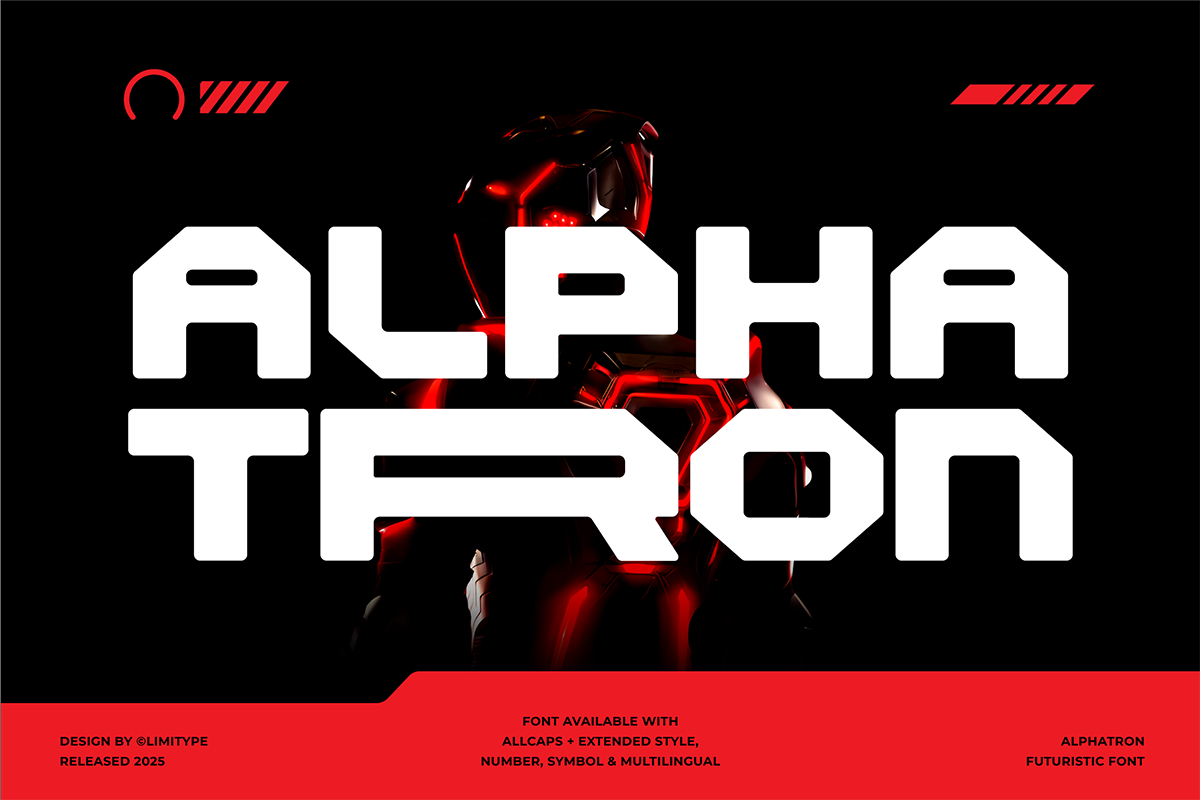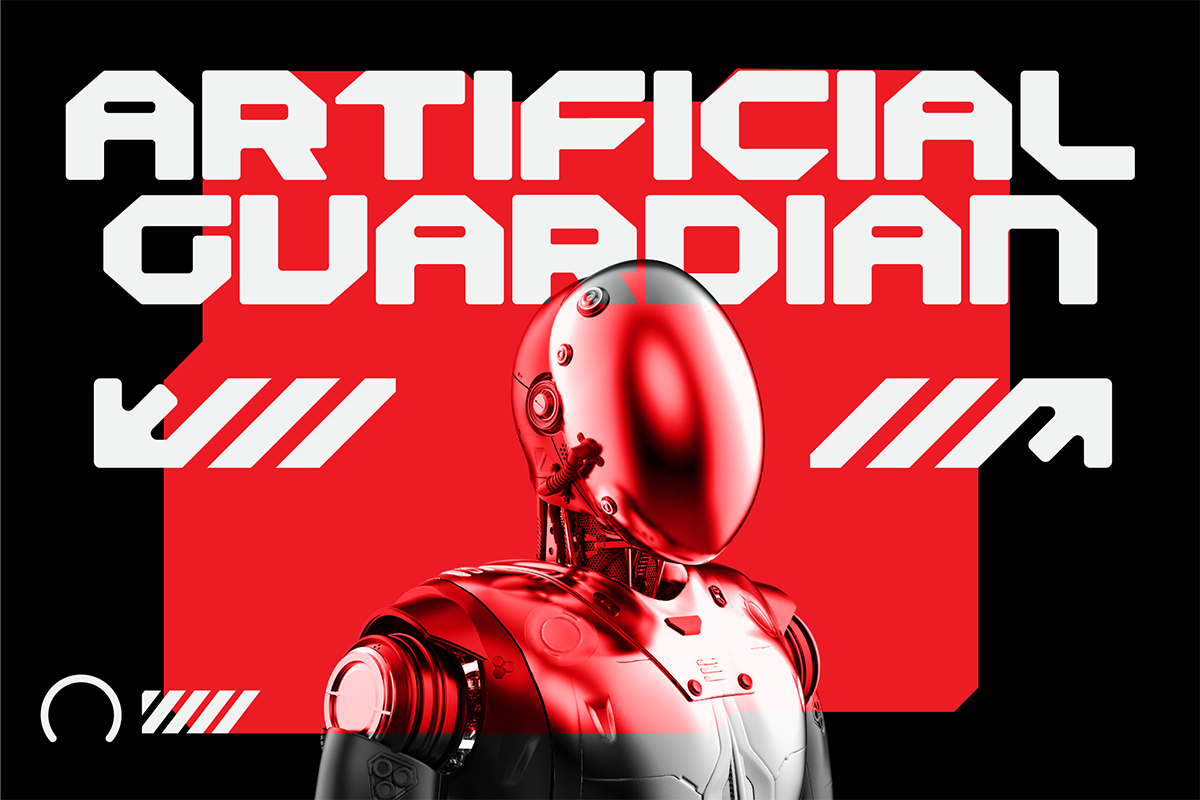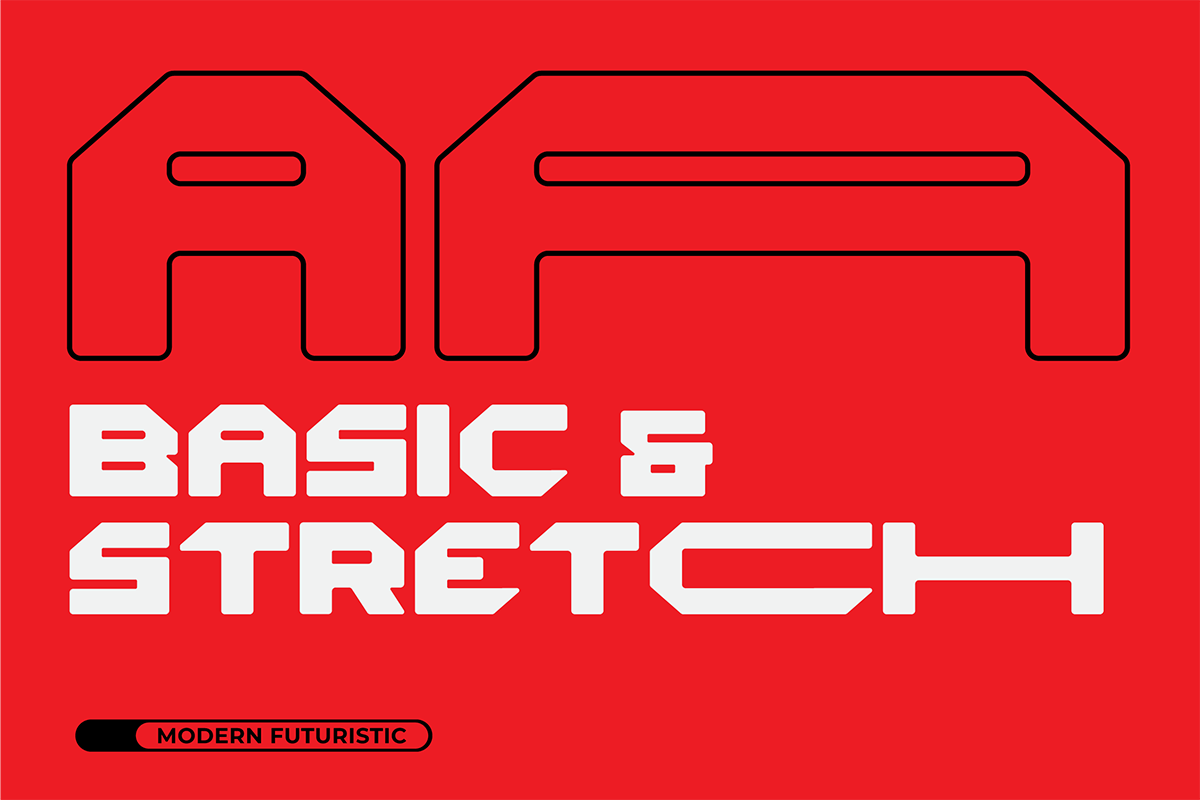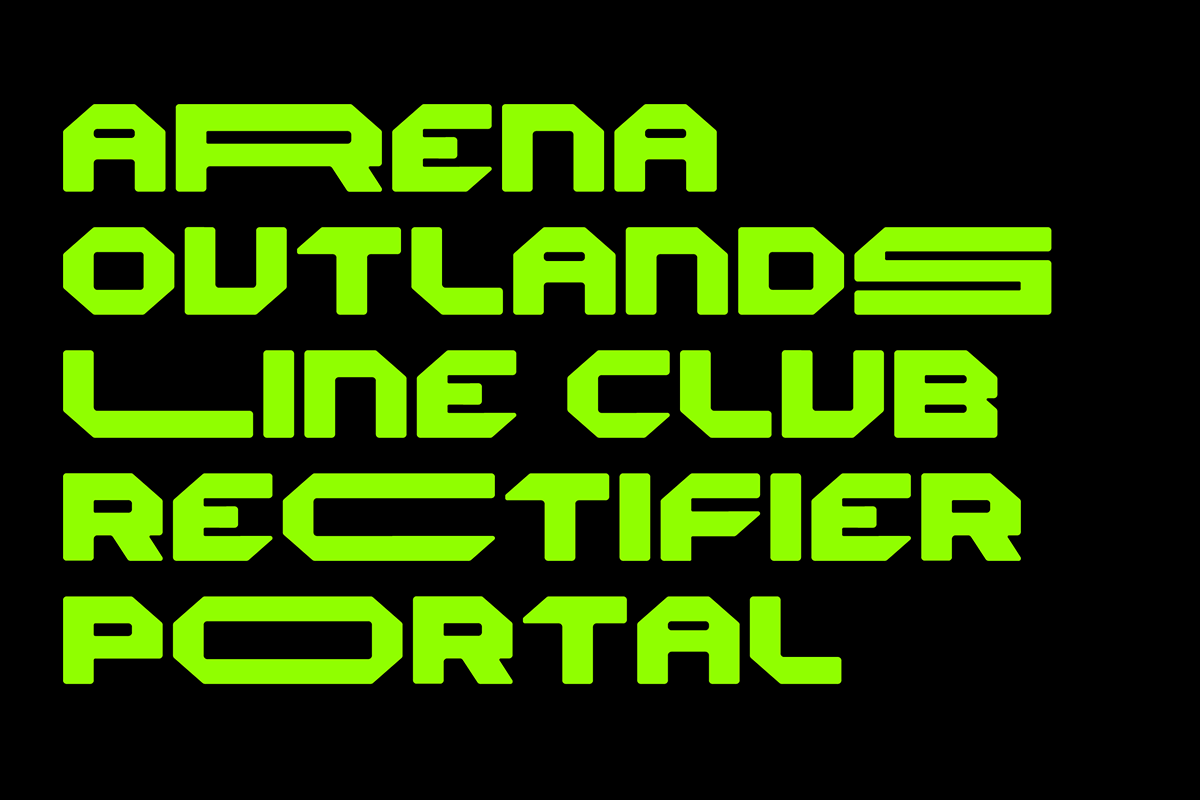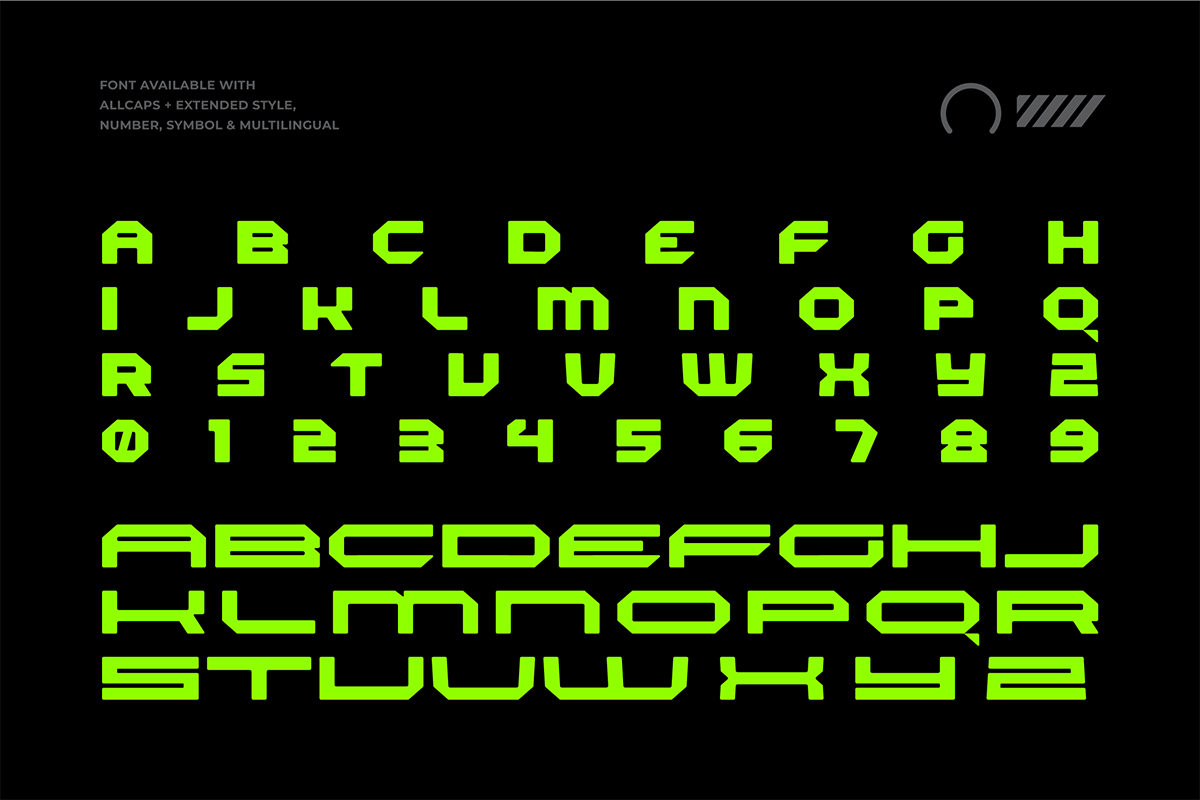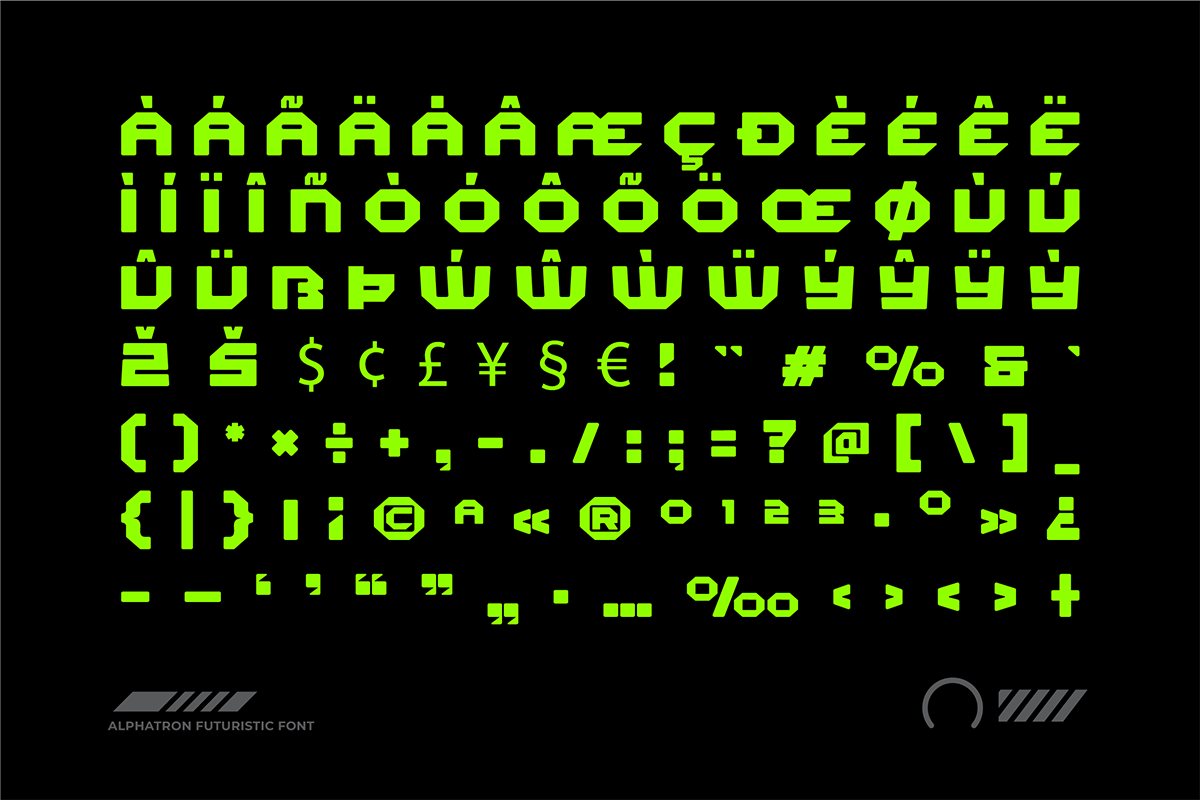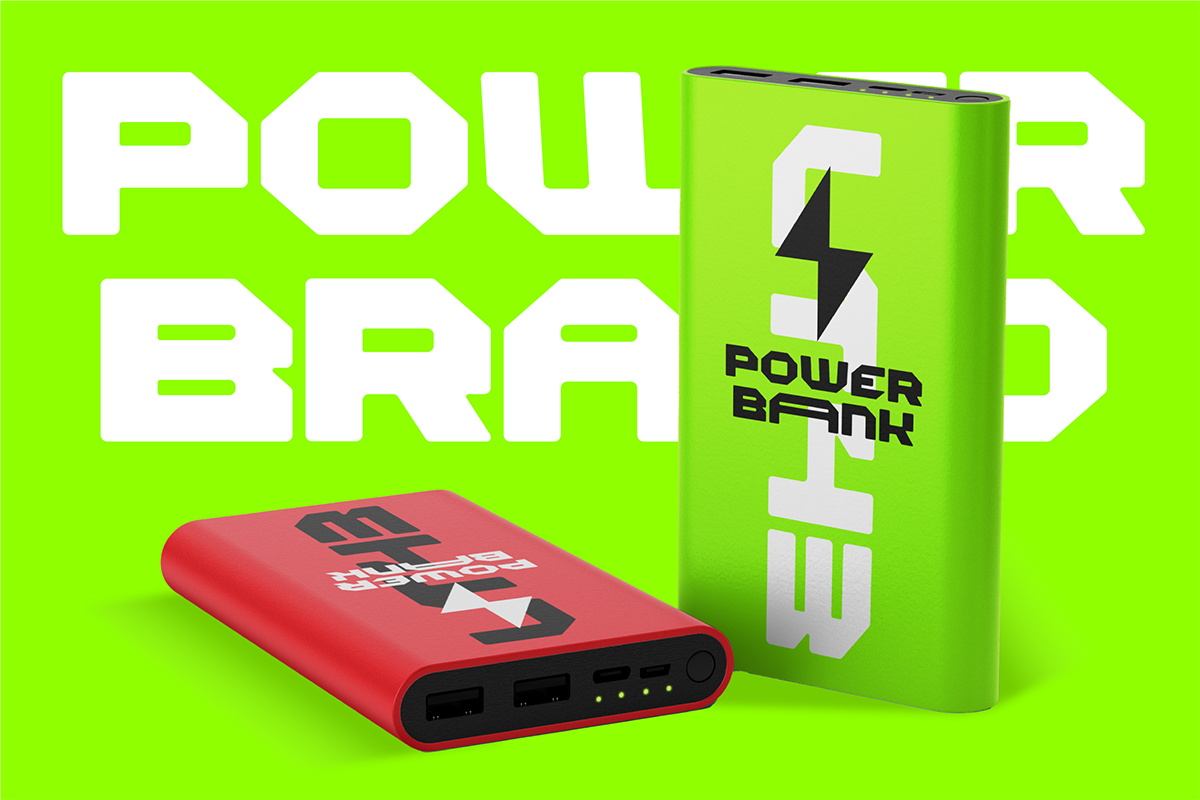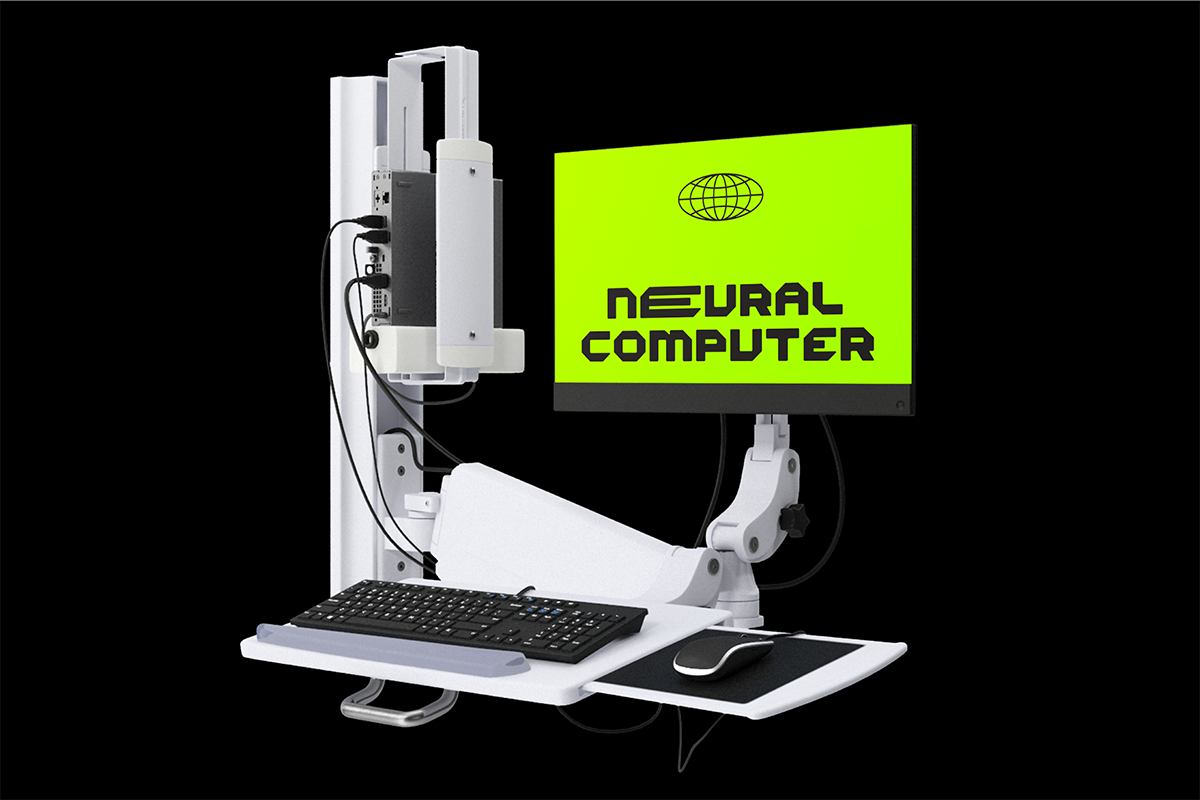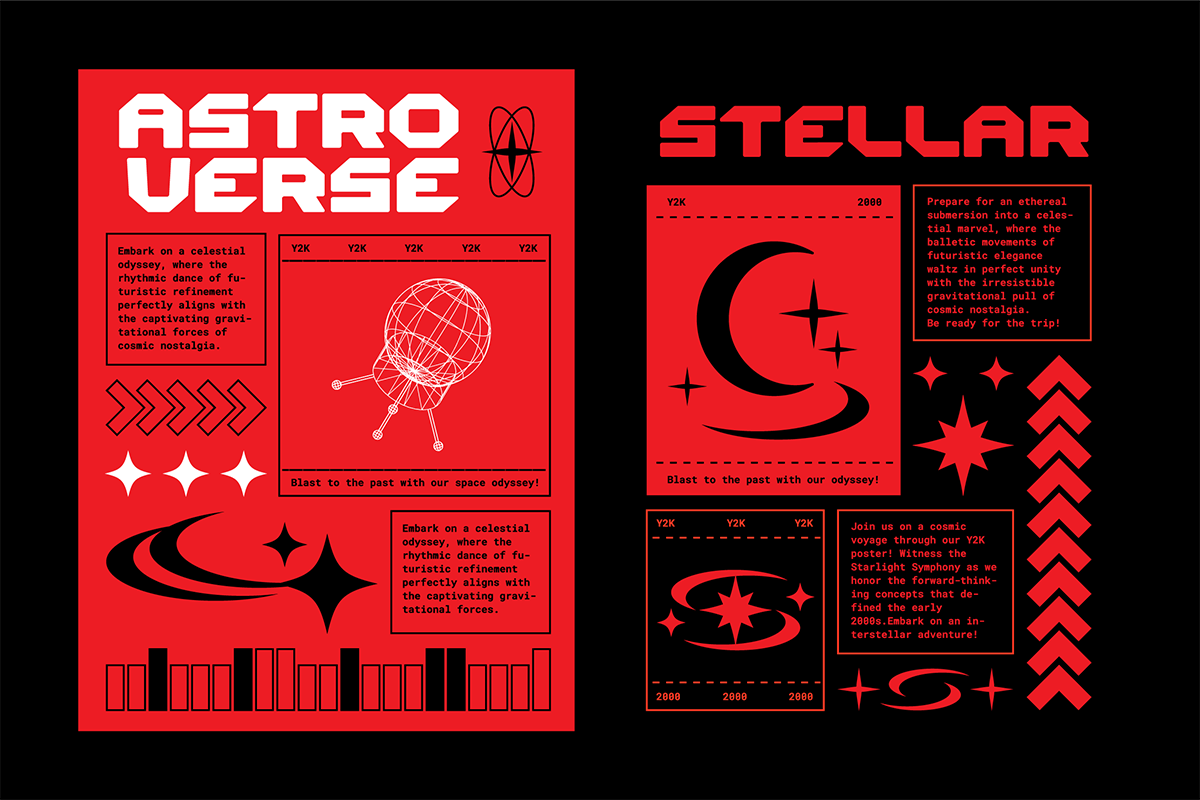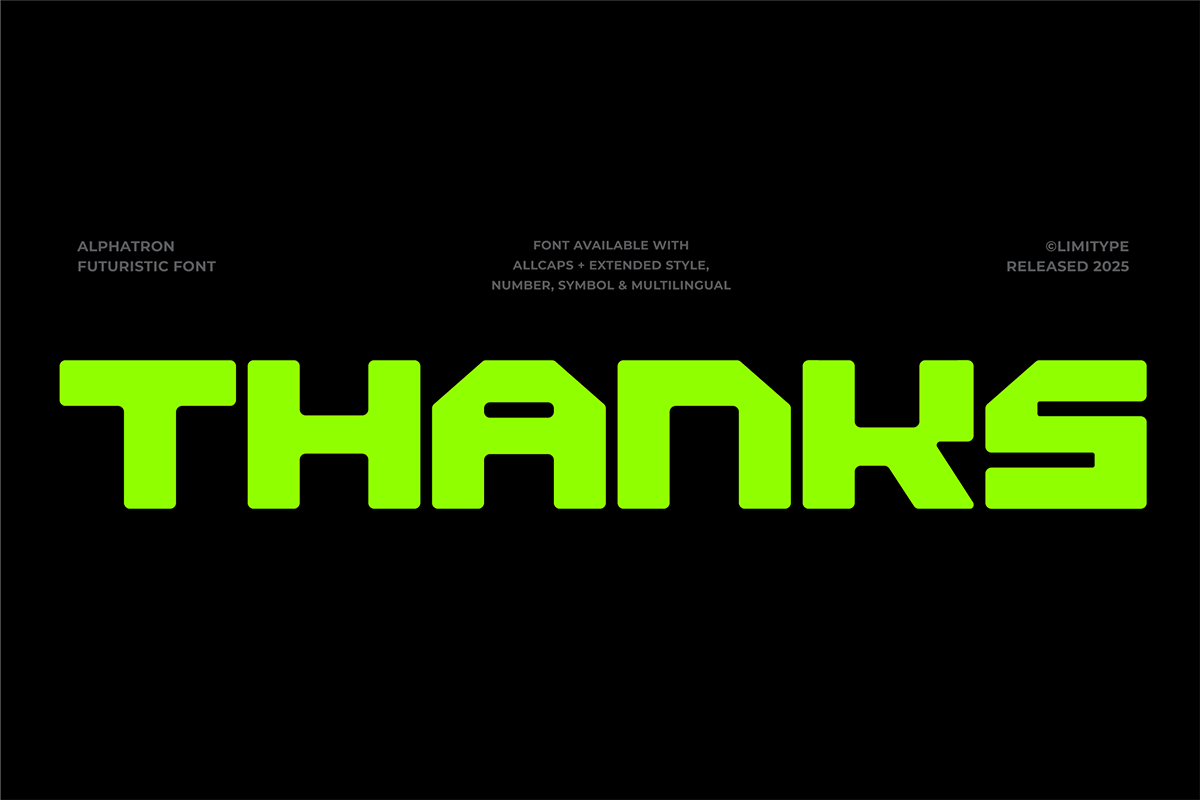
Alphatron – Futuristic Font is a display font with a bold and futuristic style. Perfect for standout headline designs, poster, branding, and future themed digital projects, It also comes with adjustable stretch variations.
Alphatron